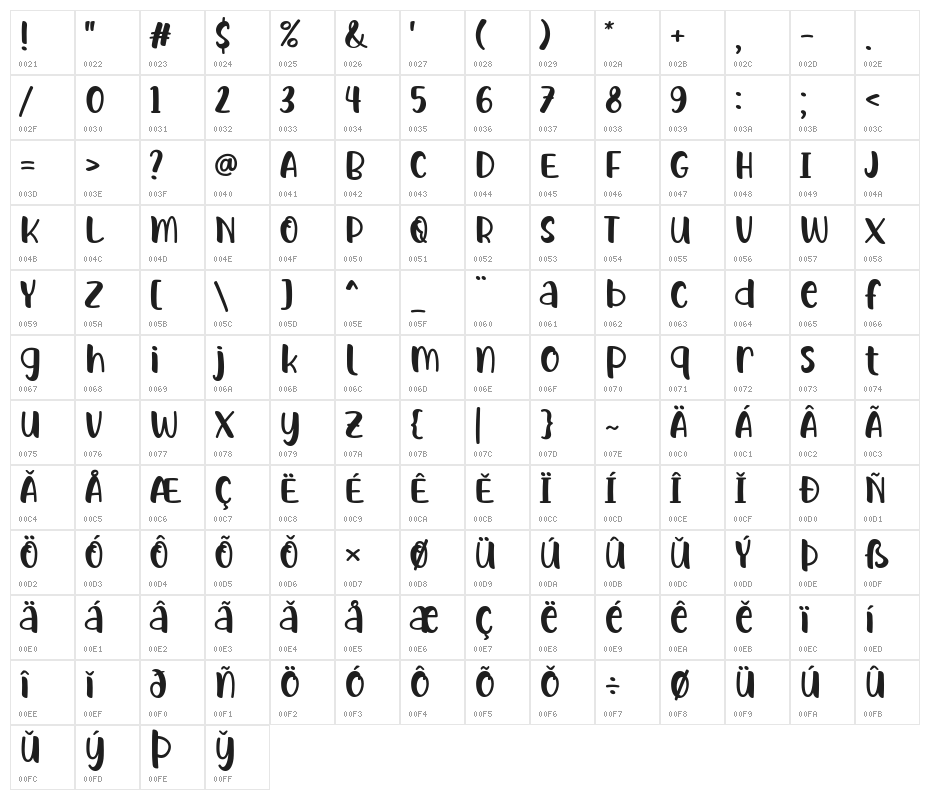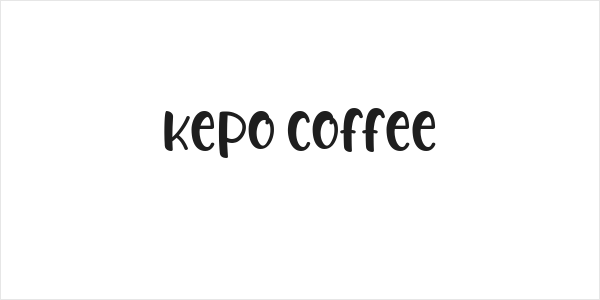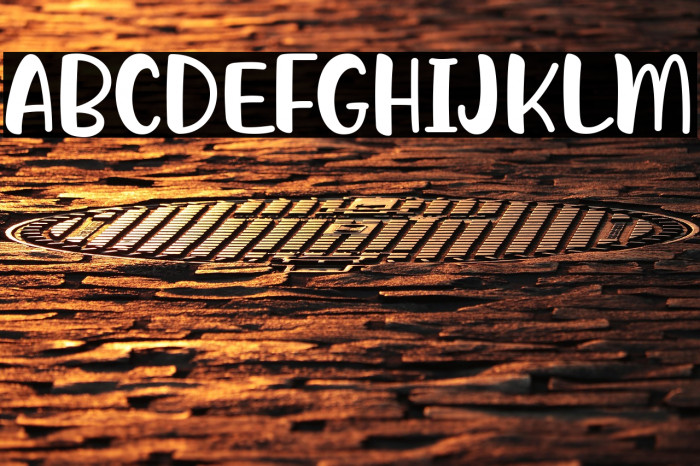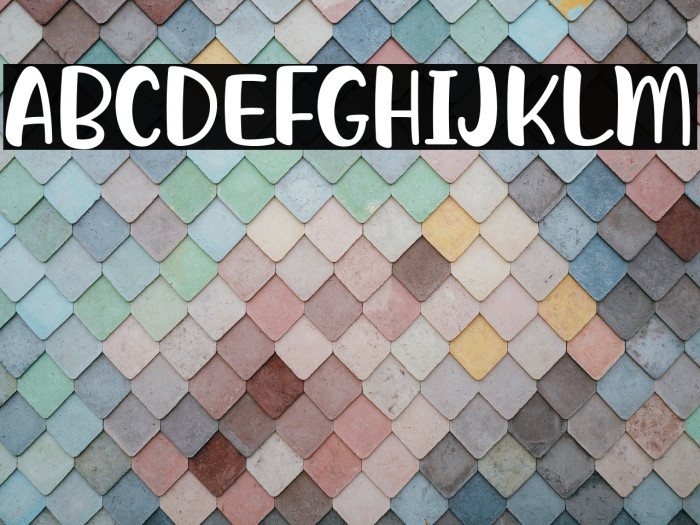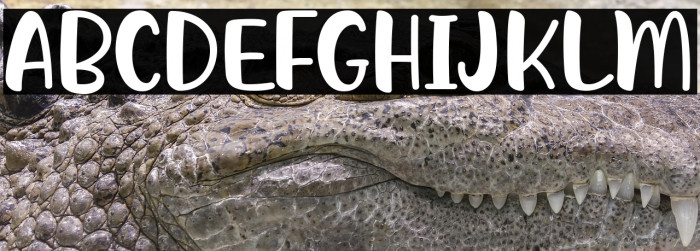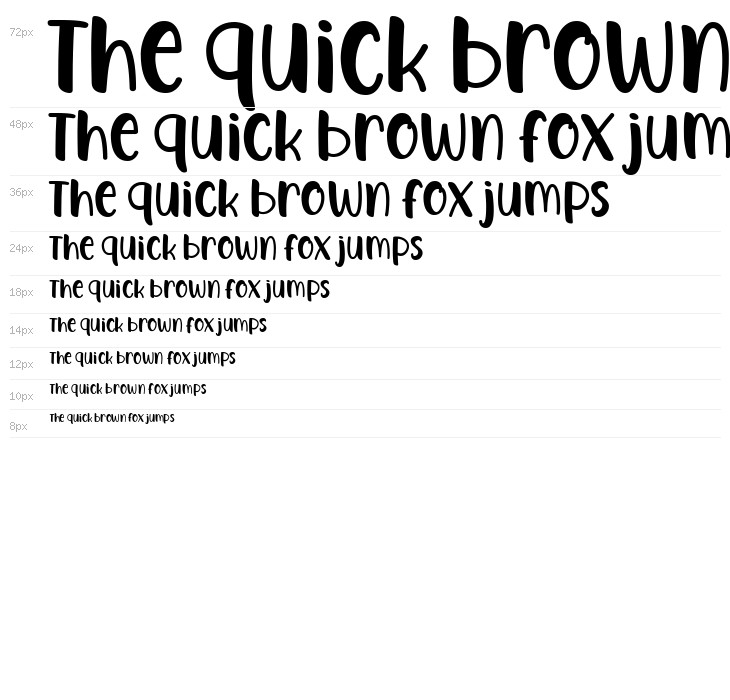
Kepo Coffee Font
Kepo Coffee Description
This font features a playful and bold handwritten style with a smooth, rounded appearance. The characters are slightly irregular, giving it a casual and friendly feel. The uppercase and lowercase letters maintain a consistent style, with the uppercase being slightly taller and more pronounced. The numbers and special characters are designed to match the overall aesthetic, ensuring a cohesive look across all text. This font's unique charm makes it ideal for projects that require a personal touch.
| Proposed Projects | Ideal for branding, packaging, greeting cards, and social media graphics. |